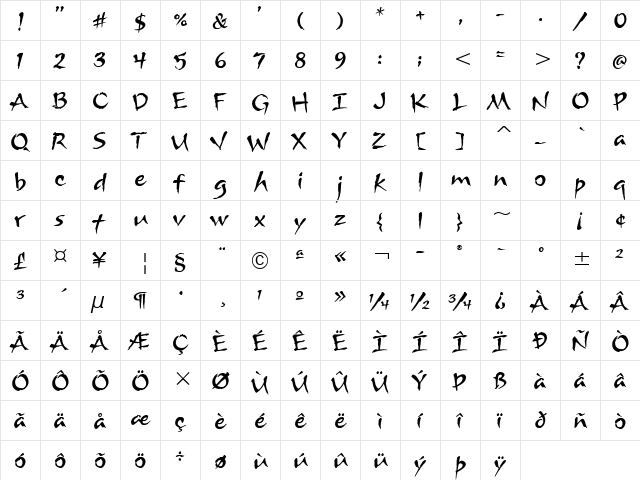
Mushu Regular
Design Context for Mushu Typeface
Mushu is a composed and adaptable typeface that performs quietly and consistently across a wide range of design contexts.